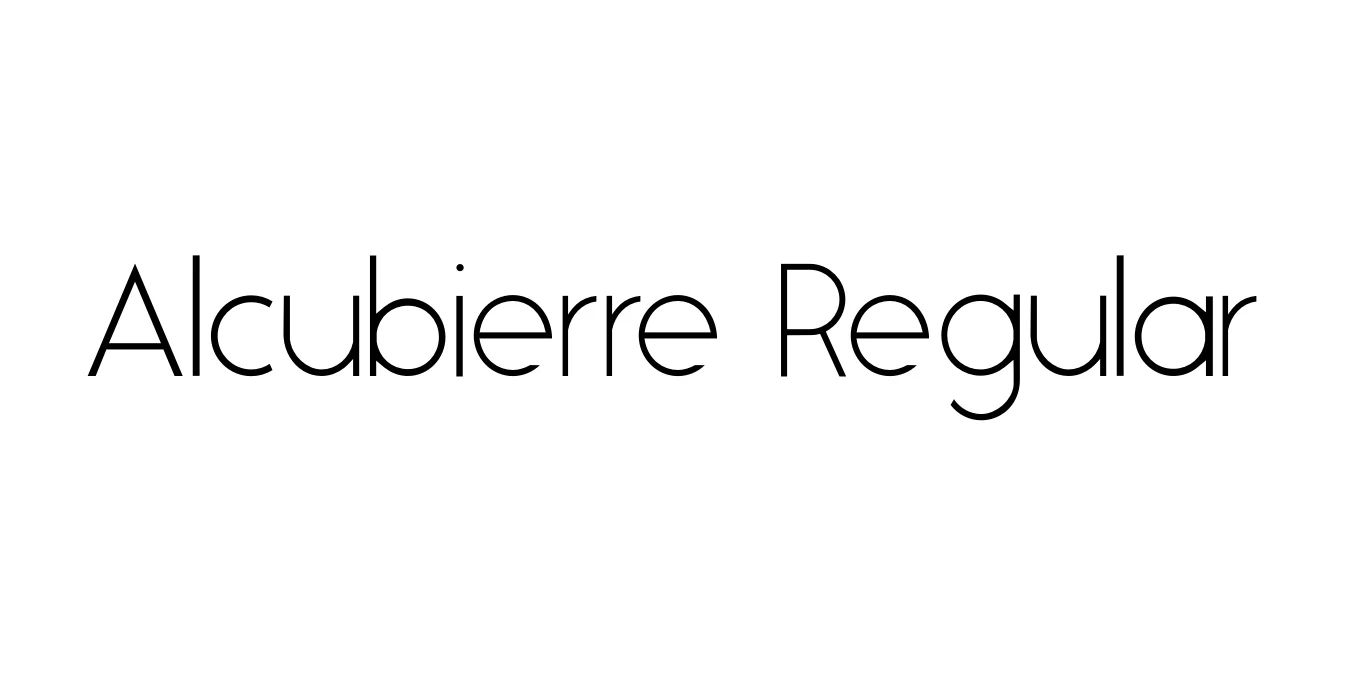
Alcubierre Regular
Designed by Matt Ellis
Alcubierre Regular is a geometric sans-serif typeface designed by Matt Ellis, characterized by its minimalist aesthetic and clean lines. It was developed to provide a contemporary look that emphasizes circular forms and balanced proportions, making it highly effective for modern digital environments. The typeface's thin, precise strokes offer a sophisticated feel that avoids the clutter often found in more traditional sans-serif designs.
The history of Alcubierre is rooted in the movement toward open-source design, where Ellis aimed to provide a high-quality, professional-grade font for the creative community at no cost. Its versatility has led to its widespread adoption in branding, UI/UX design, and editorial layouts. As a regular-weight font, it bridges the gap between display usage and legible body text, often compared favorably to premium geometric typefaces like Futura or Avant Garde.
Alcubierre Regular Best Uses
Its geometric purity makes it ideal for sleek, modern wordmarks and brand identities.
The clean structure ensures high impact and readability for website banners and hero sections.
Works beautifully in minimalist magazine layouts and contemporary posters.
Provides a non-distracting, clear aesthetic for mobile apps and dashboard interfaces.